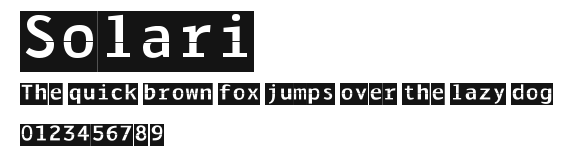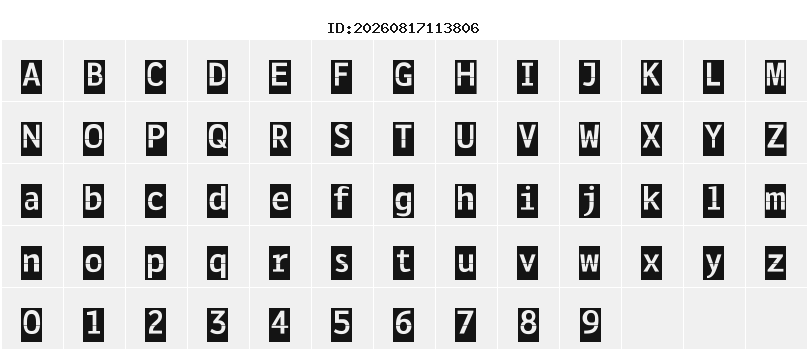
Solari Preview
• Font Name: Solari
• Full Font Name: Solari
About Solari.ttf
Solari.ttf is a modern, elegant sans-serif font designed for ultimate readability and visual harmony. Perfect for branding, headlines, web design, and print materials.